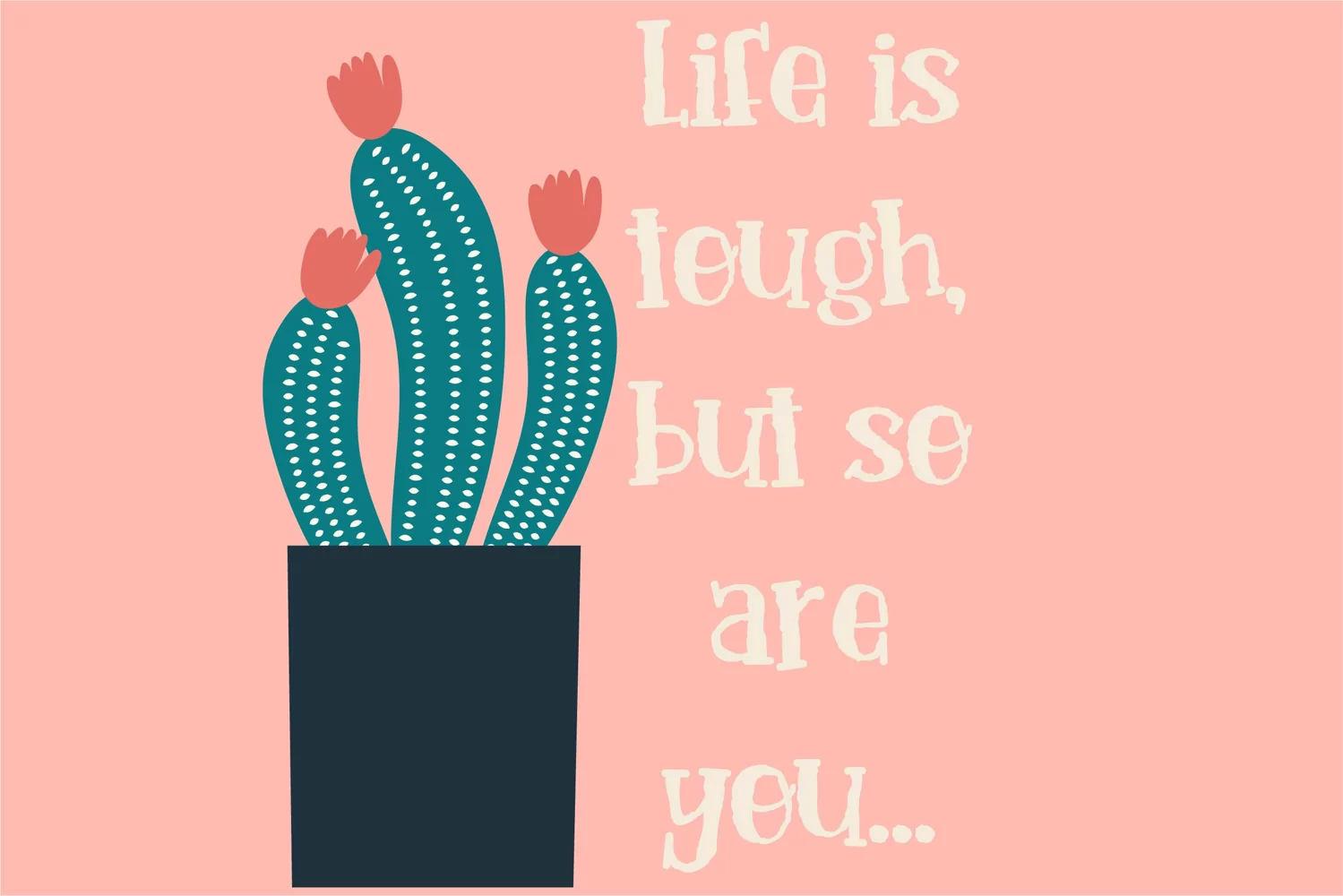
Homestretch is a quirky and chic serif font. No matter the topic, this font will be an incredible asset to your fonts’ library, as it has the potential to elevate any creation. Includes regular and bold.